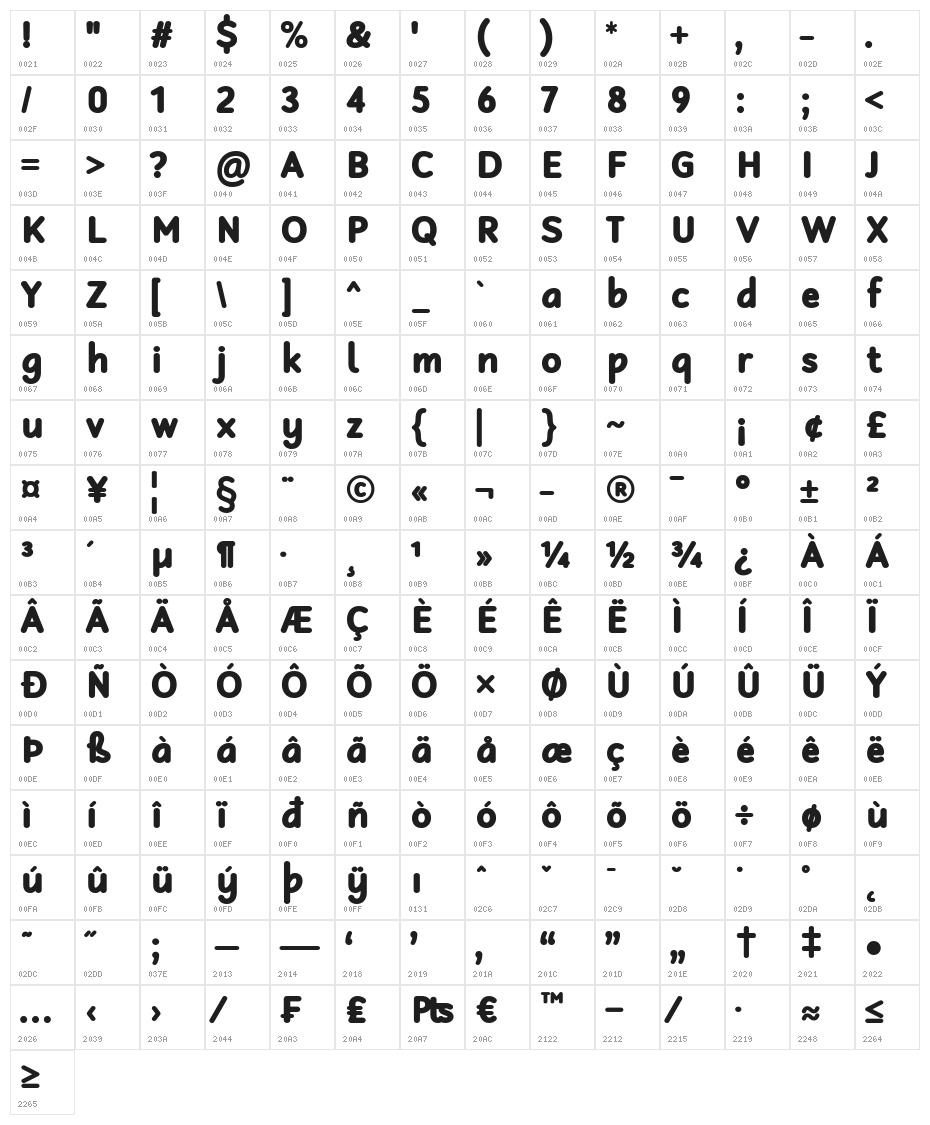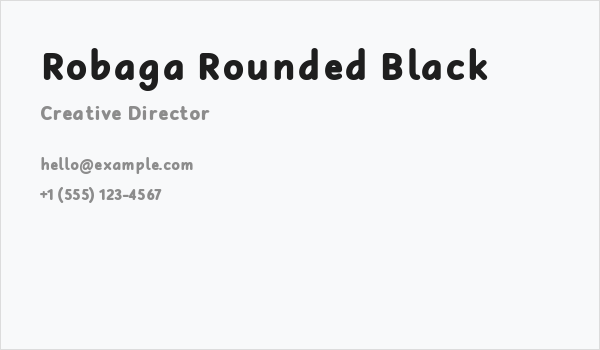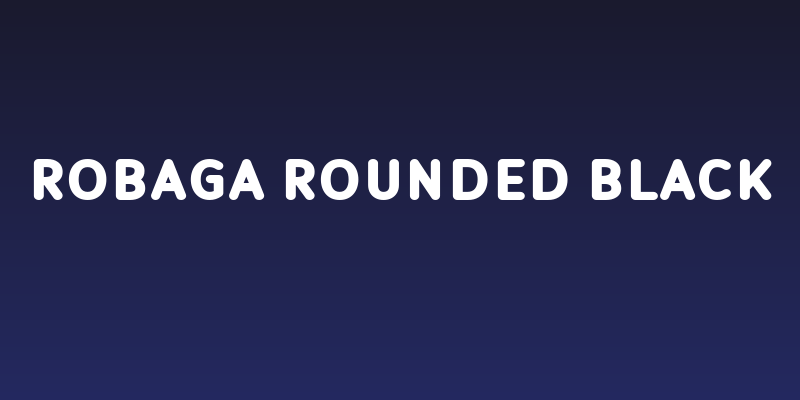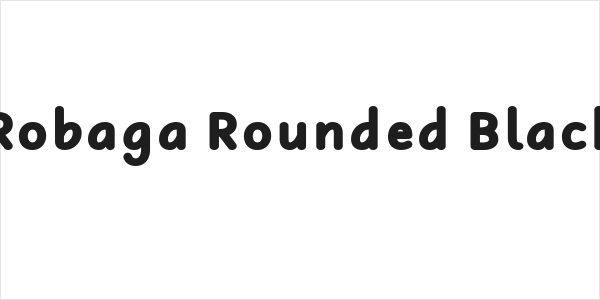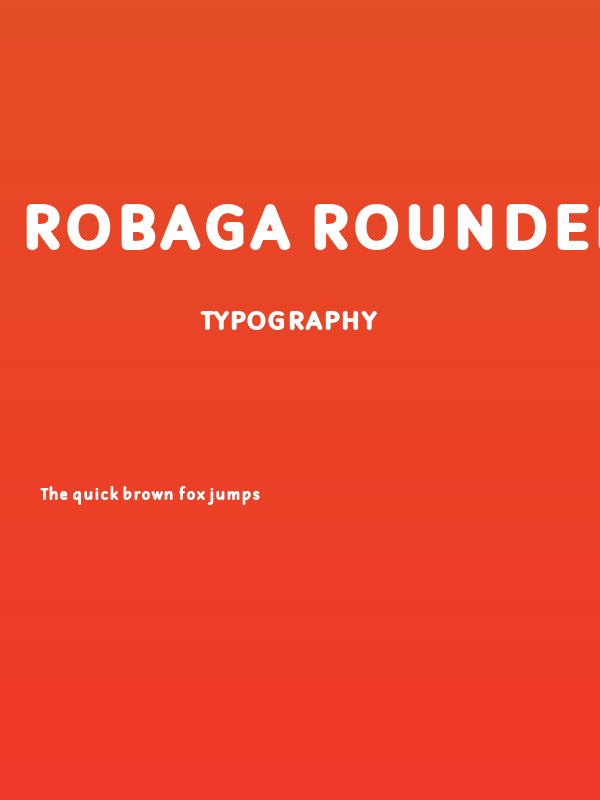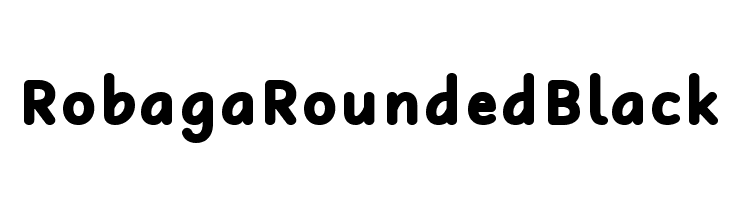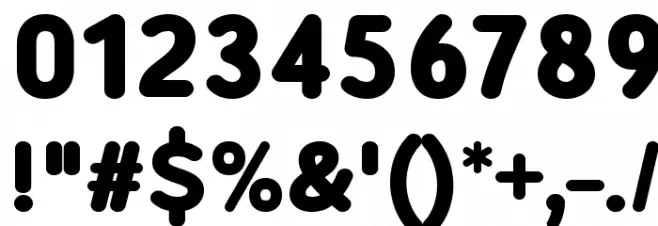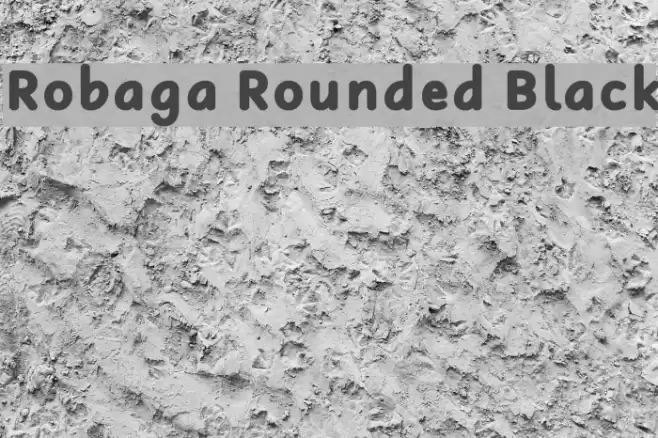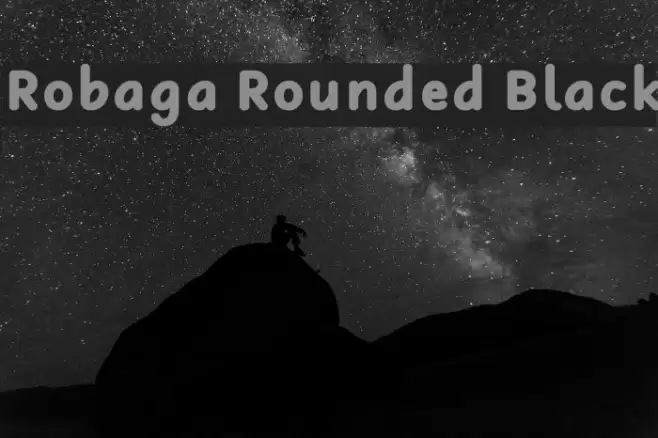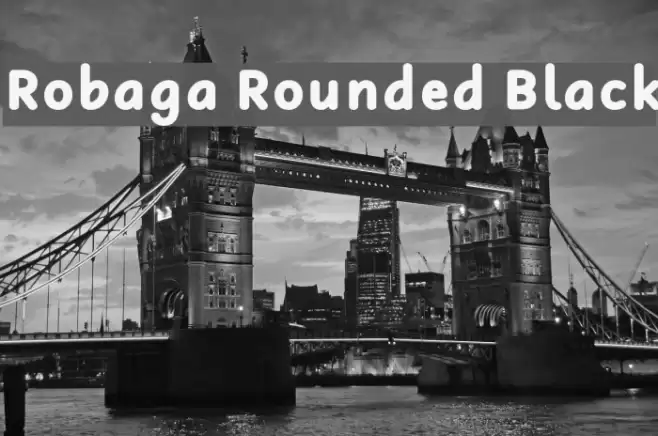
Robaga Rounded Black Font
| उपयोग का मामला | Headlines, Logos, Branding |
| सुझाए गए प्रोजेक्ट | Ideal for branding, advertising, children's books, and digital media where a friendly and modern look is desired. |